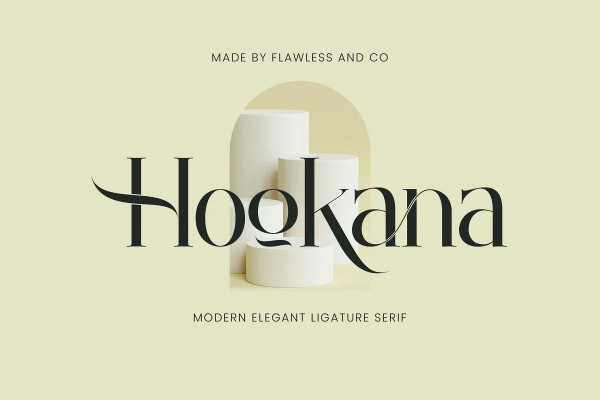
Hookana Font
Hookana Font – Modern Serif Font, our latest creation, modern serif with various alternates and ligatures, multilingual support, an updated blend of bohemian style, suitable for branding, business, logos, magazines, and others